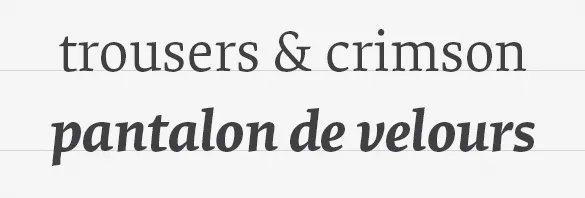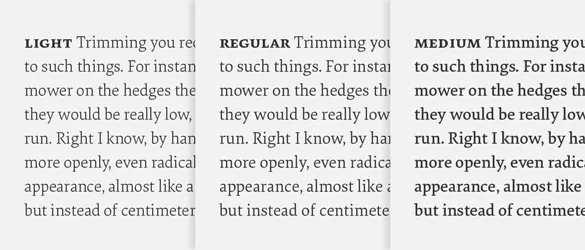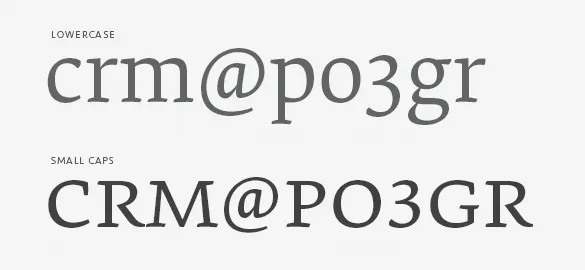
Designing Elena
The design of a new serif typeface for extended reading is an exercise in subtlety and restraint. The type designer traveling this path is faced with a limited and abstract palette with which to build unique character – stem widths, counter shapes, proportions, terminations and so on. Elena is a manipulation of these subtleties in a direct and unaffected way, creating a modern serif typeface that quietly balances warmth with a crisp, tailored tone.
Central to this typographic balancing act is a rejection of extremes. Serif typefaces meant for continuous reading quickly turn bookish and old-fashioned when rote historicism is the singular influence. On the other hand, a designer attempting to capture a contemporary voice may strip or exaggerate details only to find that grace and ease went with them. Elena merges these two ideological opposites by heeding the lessons of the past while taking advantage of formal possibilities no matter their origin.
The result is a low contrast typeface of economical proportions, moderate x-height and spare details. The influence of the broad-nibbed pen is conspicuous but tempered by a discreet reinterpretation of its shapes. Soft, brush-like terminations in the lowercase lend an organic note while a strong horizontal movement and tense curves create a structured counterpoint.
Elena debuted in two weights, Regular and Bold, and was later expanded to include two more, Light and Medium. Rather than follow a traditional linear model though, the additional weights operate as lighter and heavier gradations of the Regular. This creates a range of three text weights, allowing typographers a choice of page color or the ability to apply subtle weight changes across a design. Additionally, it’s easier to combine Elena with another typeface. Having more weights means you can control a page’s hierarchy with increased precision and avoid instances where Elena is too light or too heavy compared to its mate.
As with all of our typefaces intended for complex typographic tasks, a suite of related parts naturally follows. Small caps, lining figures, tabular lining figures, small cap figures, tabular figures and arrows are all included in the full version of the design. If this sounds excessive for your job, we’ve also designed a basic version with – you guessed it – just the basics for simple tasks and web use with the CSS @font-face rule.